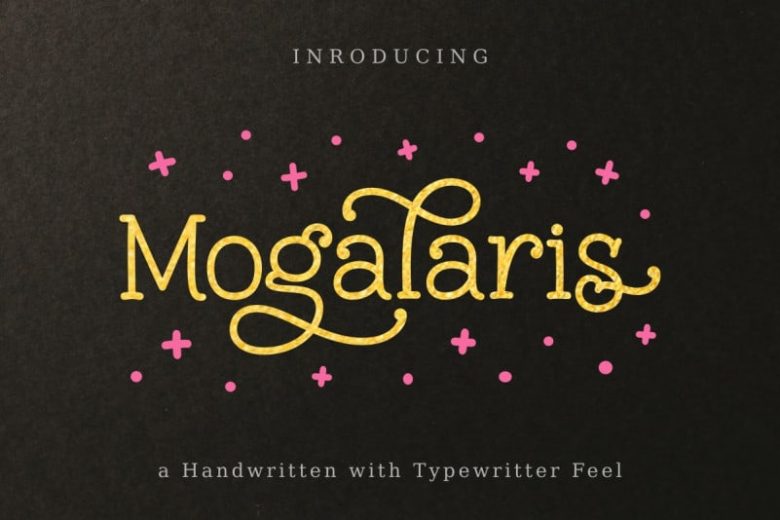
Mogalaris Slab Serif Font
Mogalaris Slab Serif Font is a display-oriented slab serif typeface. While it is bold enough to grab a viewer’s attention, it also manages to maintain legibility at smaller sizes. Made from font designer named Ghuroba Studio. It’s a sweet and friendly handwritten font. Its natural and unique style makes it incredibly fitting to a large pool of designs. The only limit is your imagination!